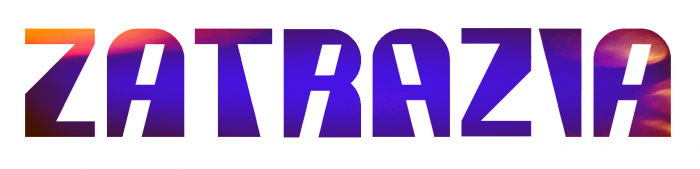
Lefty version of zavantia. It's very funny mix both fonts.
This kind of has the same feel like the Zizaya/Zhears pair
@BWM: That was the idea. Once I had zavantia made, it was easy to switch the inside part of the glyphs to the left and get zatrazia. And the combination of both fonts is quite interesting. PS: Actually, I usually do these things when I find myself stuck with a font that I do not finish solving properly. It's kind of an escape valve for me. Always grateful for the comments and support, pal.
zavantia/zatrazia mix is cool!
I think that in this font you can make a more appropriate 7 out of a 180-degree upside-down L. You can add a horizontal line to it if you're afraid it might be confused with 1.
this font is trippy compared to the original